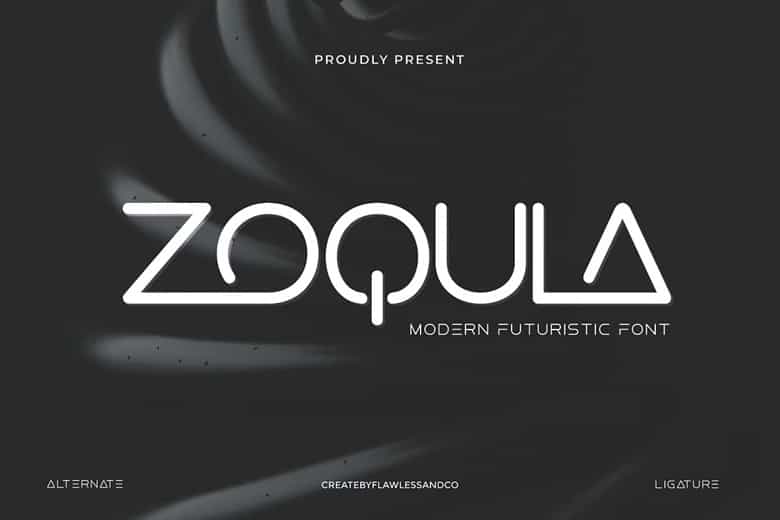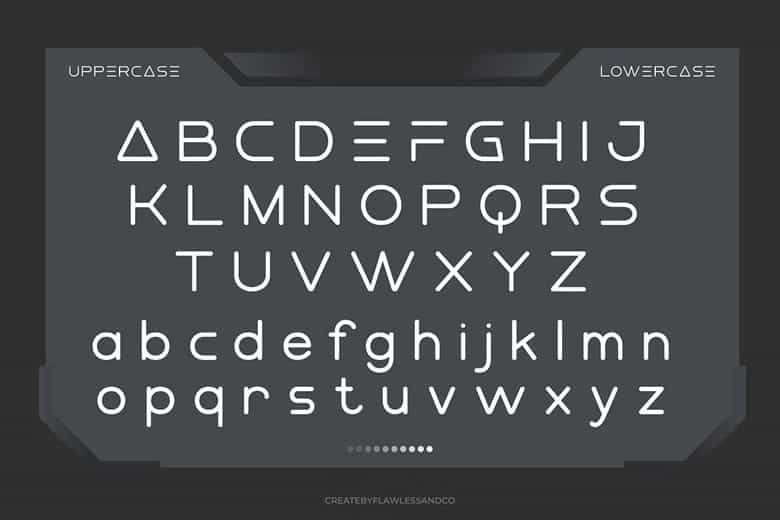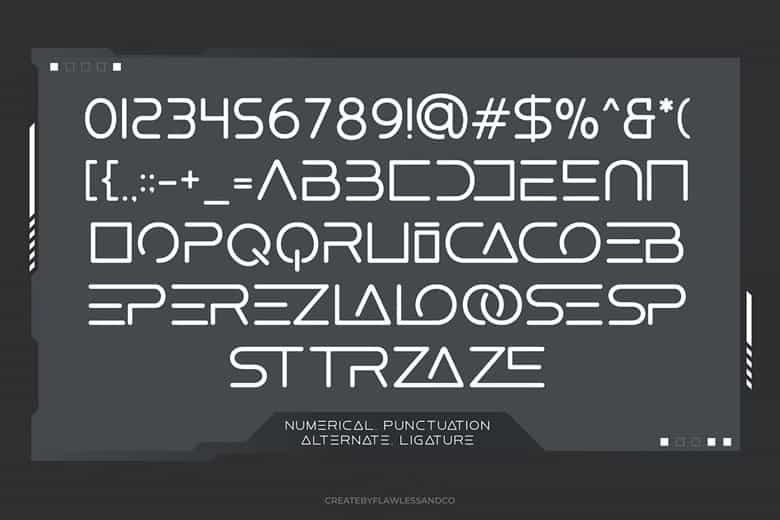
Zoqula is both minimal and science fiction-inspired. Taking cues from cyberpunk art and futuristic designs, Zoqula is built from sharp edges, broad lettering and a clear geometric style that makes it bold and modern. For projects such as tech branding, game titles, user interfaces and experimental posters, Zoqula gives a modern and creative touch to any page design.